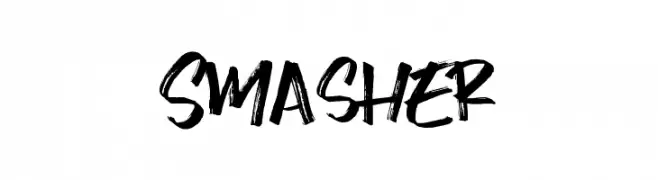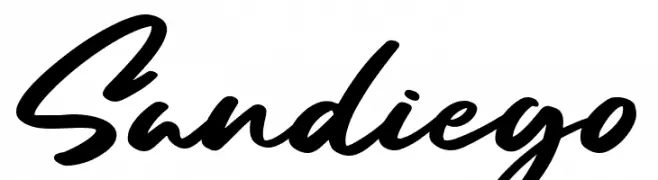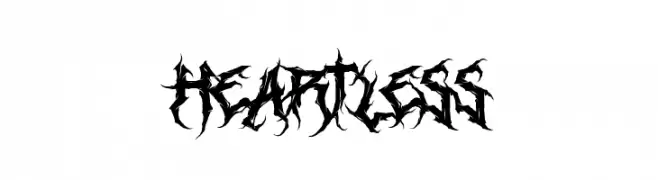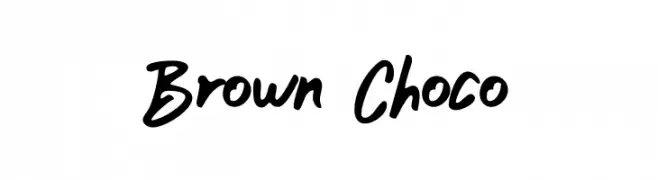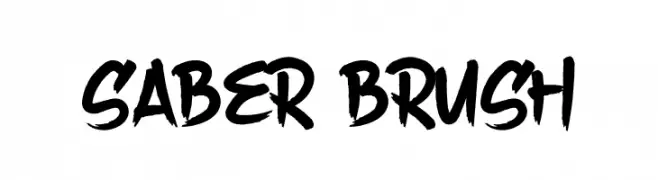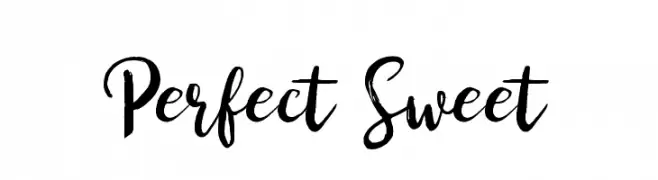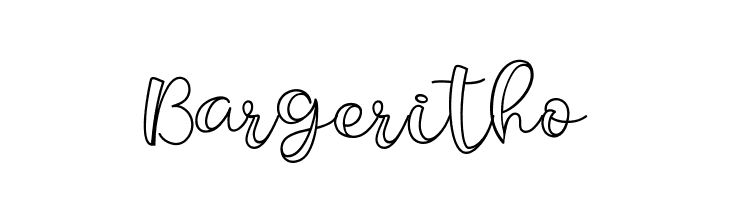
A bold, hand-painted style font with dynamic strokes and a raw, artistic feel.
A dynamic, fluid script font with elegant cursive strokes and a bold, modern style.
A jagged, edgy font with sharp, thorn-like characters.
A bold, handwritten font with a lively and dynamic style.
A bold, expressive handwritten font with dynamic strokes.
A bold, brush-style font with dynamic, hand-painted strokes.
An elegant, cursive font with a natural handwriting style.
A bold, decorative font with elegant curves and a strong presence.
A bold, expressive handwritten font with fluid, brush-like strokes.
A chaotic, textured font with jagged strokes, ideal for eerie or mysterious themes.